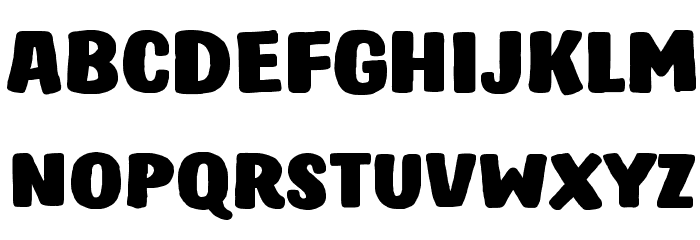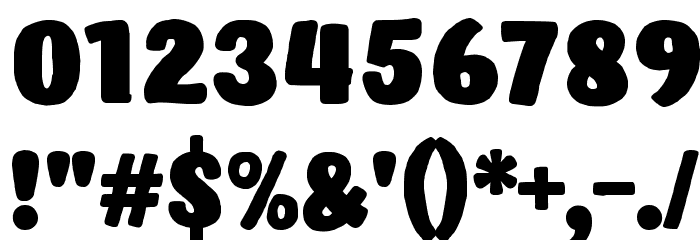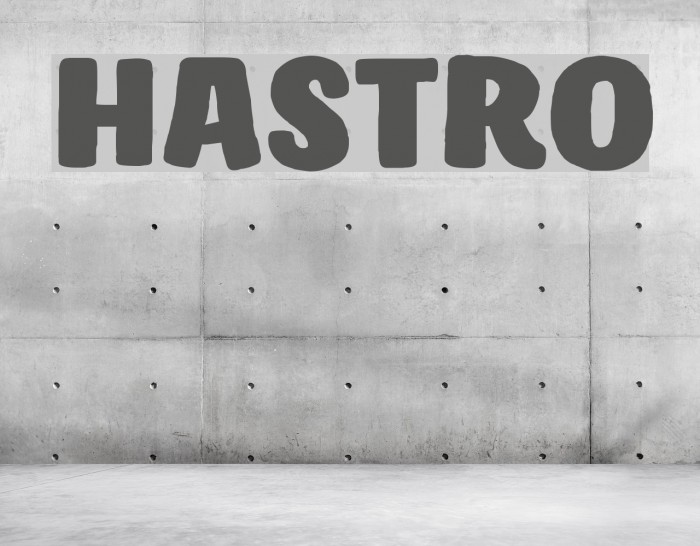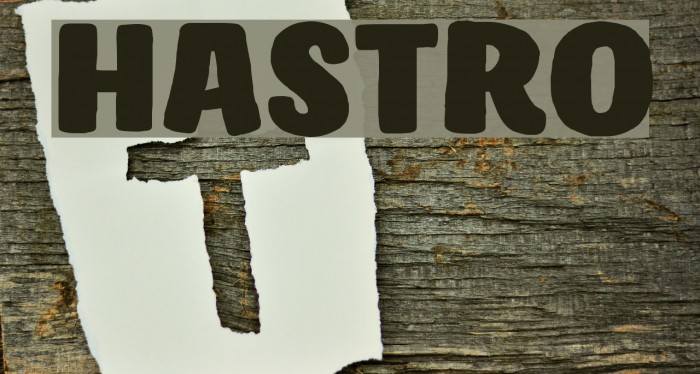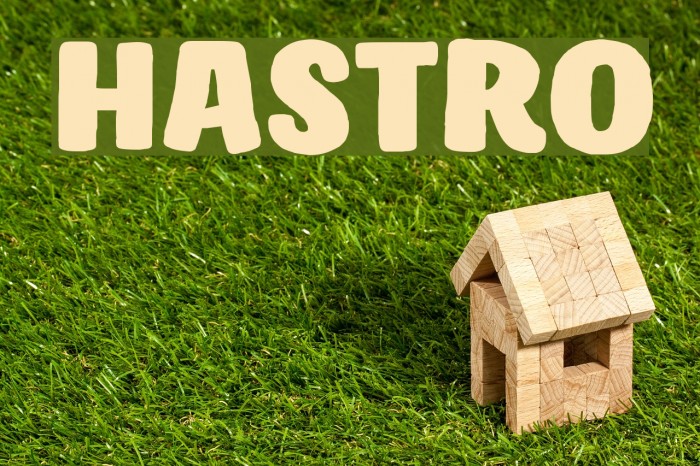
Hastro Font
This font features bold, rounded characters with a playful and energetic style. The letters are thick and have a slightly irregular shape, giving them a hand-drawn appearance. The uppercase and lowercase letters maintain a consistent weight, contributing to a cohesive look. The numbers and special characters follow the same design principles, ensuring uniformity across all glyphs. The font's boldness and rounded edges make it highly legible and suitable for attention-grabbing designs. Its unique style is perfect for projects that require a fun and informal touch.
A bold, rounded font with a playful, hand-drawn style.
- Proposed Projects: Ideal for children's books, playful branding, posters, and social media graphics.
- Overall Style: Playful